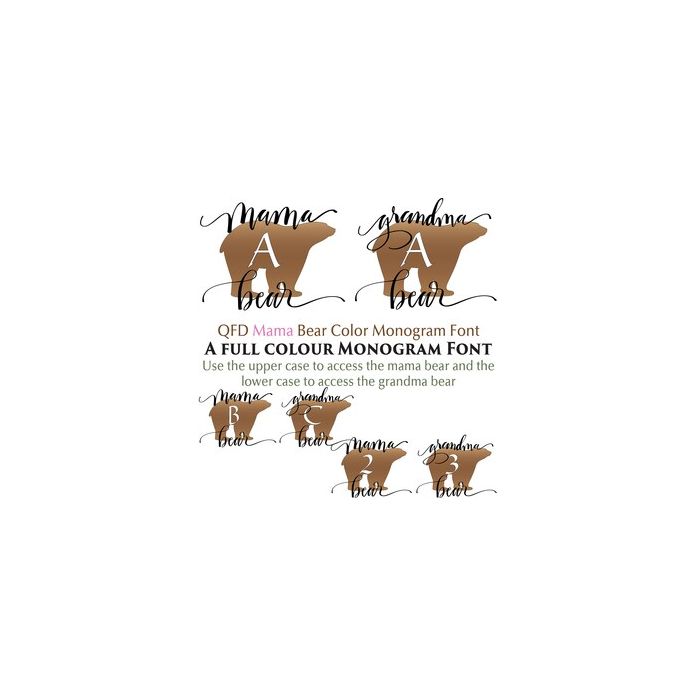
How adorable are these family members? Make sure you see the other family members in this collection. Use the upper case to access the mama bear monograms and the lower case to access the grandma monograms. Use the period, comma and / to access the blank designs.